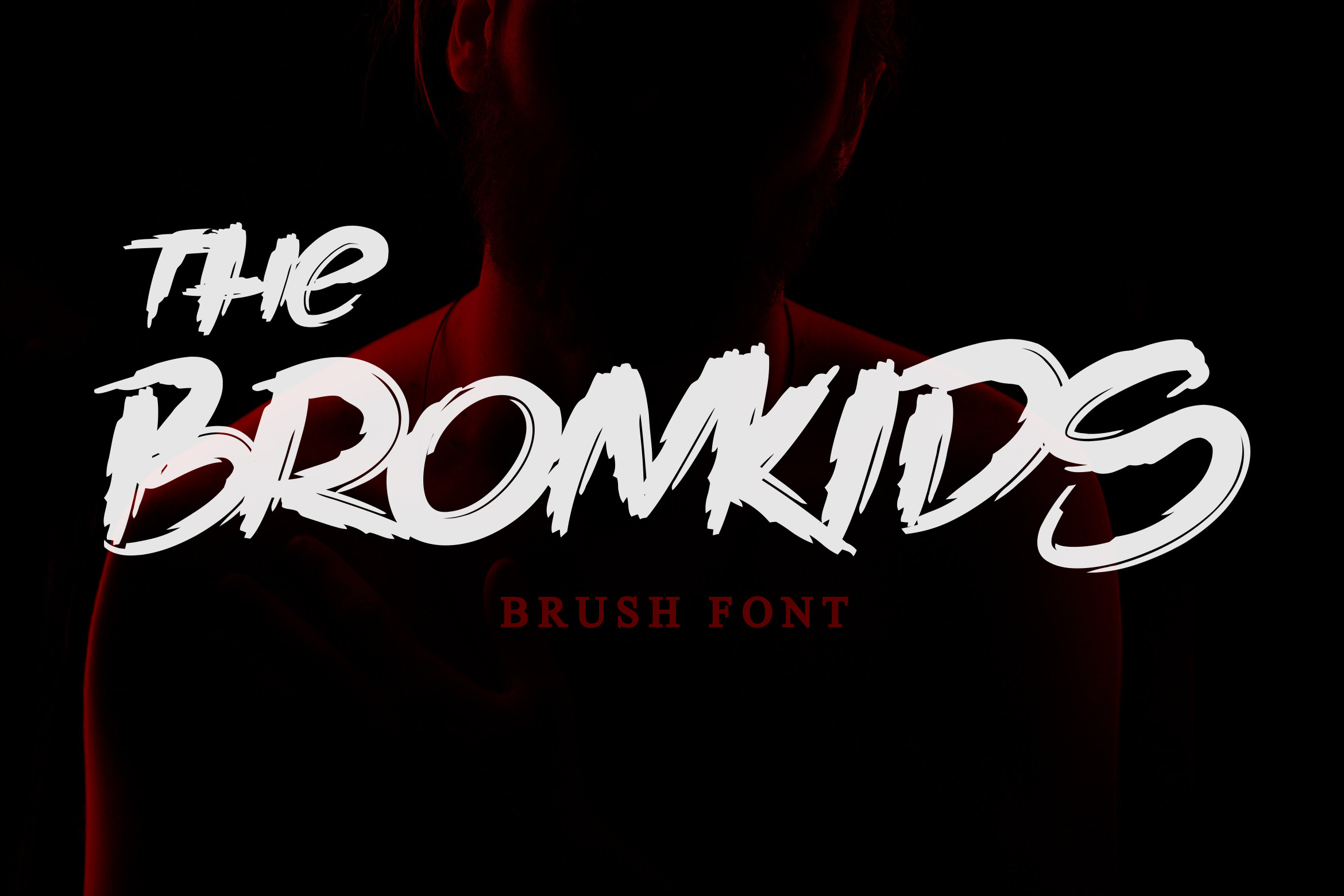
Introducing our newest product The Bronkids.
The Bronkids is a strong brush font, making it suitable for your design project :
Logo design, clothing design, posters, magazines, quotes and more. Made with natural touch, this font is the best choice for all your design projects.